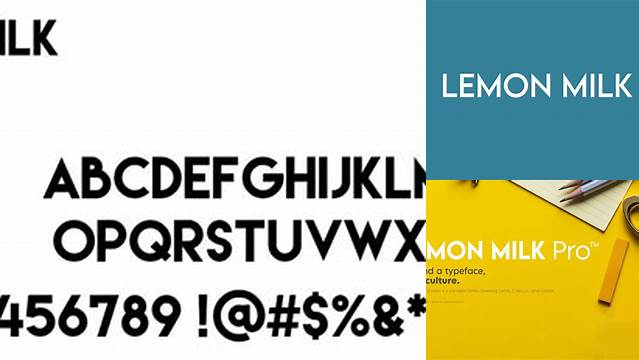
Lemon Milk Font: A Free & Modern Typeface Family
Hey guys! Ever stumbled upon a font that just clicks? That's how I felt when I first saw Lemon Milk, and I bet you'll feel the same. This isn't just another font; it's a whole family of sleek, modern typefaces that you can snag for free. Yep, you heard that right! In this article, we're diving deep into everything Lemon Milk, from its various styles to how you can use it to make your designs pop. So, grab a virtual cup of coffee, and let's get started!
1. What is the Lemon Milk Font Family?
So, what exactly is the Lemon Milk font family? Well, it’s a super versatile, geometric sans-serif typeface designed by Marsnev. It's known for its clean lines, modern feel, and a variety of weights and styles. Think of it as the Swiss Army knife of fonts – you can use it for practically anything! From bold headlines to subtle body text, Lemon Milk has got you covered. Its open and friendly appearance makes it a great choice for both digital and print projects. The best part? It's free for personal and commercial use, making it a fantastic option for designers on a budget. Seriously, guys, this font is a game-changer for those looking to add a touch of modern elegance to their projects without breaking the bank.
2. The History and Evolution of Lemon Milk
The history of Lemon Milk is actually pretty interesting. Created by the talented designer Marsnev, it started as a personal project and quickly gained popularity within the design community. What began as a single weight evolved into a full-fledged font family, thanks to the overwhelming positive response and demand for more styles. Over time, new weights, italics, and variations were added, expanding its versatility and usability. The evolution of Lemon Milk reflects the collaborative spirit of the open-source design world, with contributions and feedback from various designers helping to shape its final form. Today, it stands as a testament to how a simple idea can grow into a widely used and beloved typeface. It's a fantastic example of how community input can transform a project into something truly special.
3. Key Features of the Lemon Milk Font
One of the things that makes Lemon Milk stand out are its key features. First off, the geometric design gives it a very clean and modern look. The rounded terminals add a touch of softness, preventing it from feeling too sterile. The font family includes a wide range of weights, from thin to black, allowing for great flexibility in your designs. It also supports a variety of languages, making it accessible to a global audience. The consistent letterforms ensure legibility across different sizes and applications. Plus, the free license means you can use it for just about anything without worrying about licensing fees. Trust me, guys, these features make Lemon Milk a must-have in any designer’s toolkit!
4. Different Weights and Styles Available
Let's talk about the different weights and styles you can find in the Lemon Milk font family. You've got everything from thin and light for delicate designs, to regular for everyday use, all the way up to bold and black for making a statement. And don't forget the italics, which add a touch of elegance and flair. This variety means you can use Lemon Milk for headlines, body text, logos, and more, without ever having to switch to a different font. Seriously, the flexibility is amazing! Whether you’re creating a minimalist website or a bold poster, Lemon Milk has a style that will fit perfectly. Having such a range of options within one family makes your design process so much smoother.
8. Using Lemon Milk in Graphic Design Projects
Okay, let's get into the fun part: using Lemon Milk in graphic design projects. This font is incredibly versatile, making it perfect for a wide range of applications. Use the bolder weights for eye-catching headlines, and the lighter weights for clean, readable body text. Lemon Milk works great in logos, posters, websites, and even branding materials. Its modern and clean aesthetic makes it suitable for both digital and print designs. Experiment with different styles and combinations to create unique and compelling visuals. Whether you're designing a minimalist business card or a vibrant social media graphic, Lemon Milk can help you achieve a polished and professional look. Seriously, guys, the possibilities are endless!
9. Pairing Lemon Milk with Other Fonts
One of the keys to great design is pairing Lemon Milk with other fonts effectively. Since Lemon Milk is a sans-serif font, it pairs well with serif fonts like Lora, Merriweather, or Playfair Display. These combinations create a nice contrast and visual balance. You can also pair it with other sans-serif fonts that have a different personality, such as Montserrat or Open Sans, for a more subtle variation. The goal is to choose a font that complements Lemon Milk without overshadowing it. Experiment with different pairings to see what works best for your project. A good rule of thumb is to use Lemon Milk for headlines and a complementary font for body text, or vice versa. Trust me, guys, finding the right font pairing can elevate your design to the next level!
30. Why Lemon Milk Remains a Popular Choice
There are several reasons why Lemon Milk remains a popular choice among designers. First and foremost, it's a visually appealing font that strikes a balance between modern and approachable. Its clean lines and geometric forms give it a contemporary feel, while its subtle curves add a touch of warmth and personality. Secondly, it's incredibly versatile, adapting to a wide range of design applications. And finally, its free license makes it accessible to designers of all levels. Seriously, guys, Lemon Milk's combination of aesthetics, versatility, and affordability makes it a winner in the eyes of many designers!